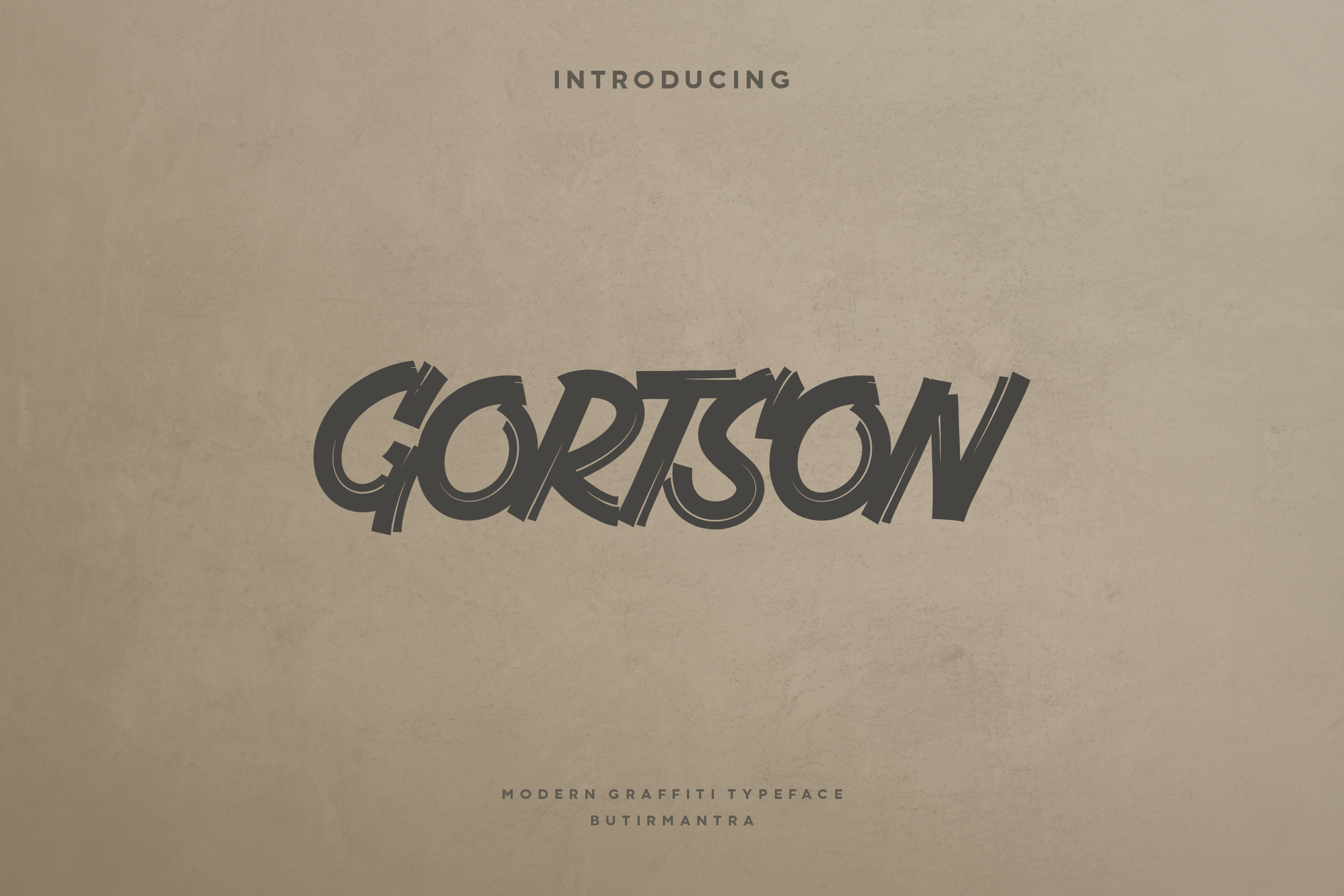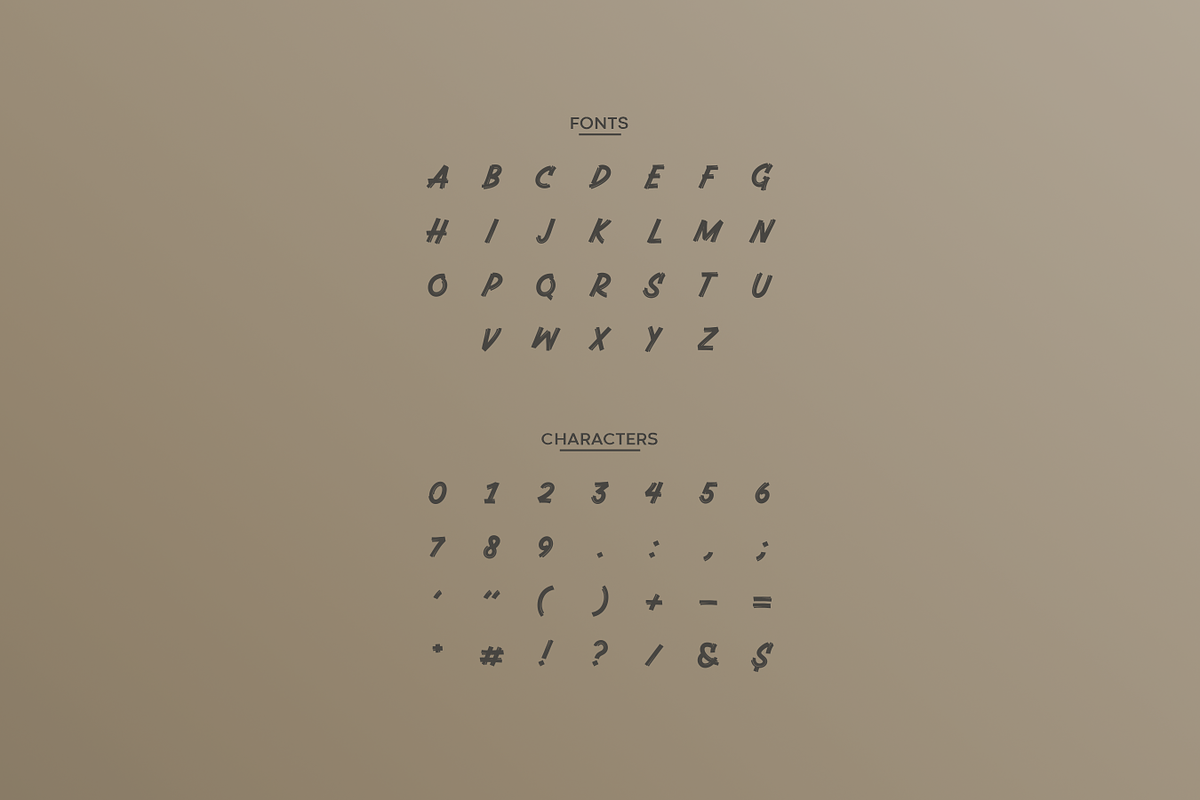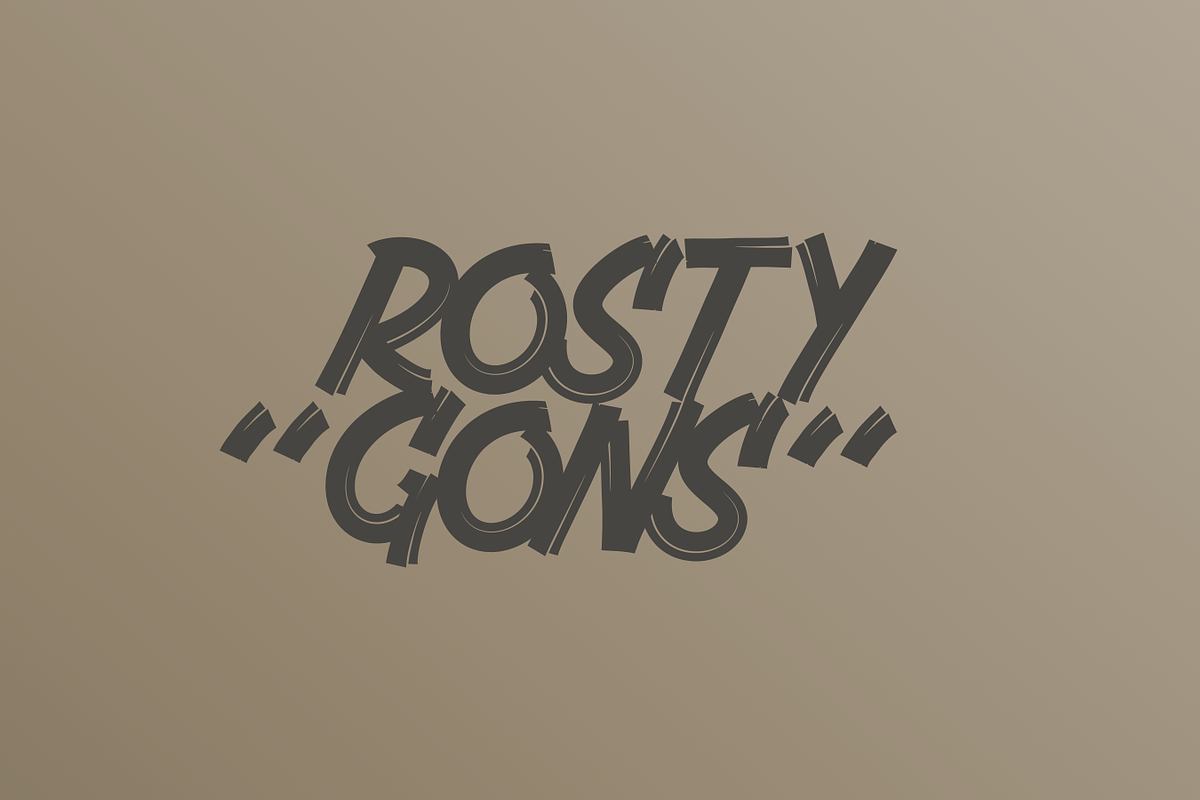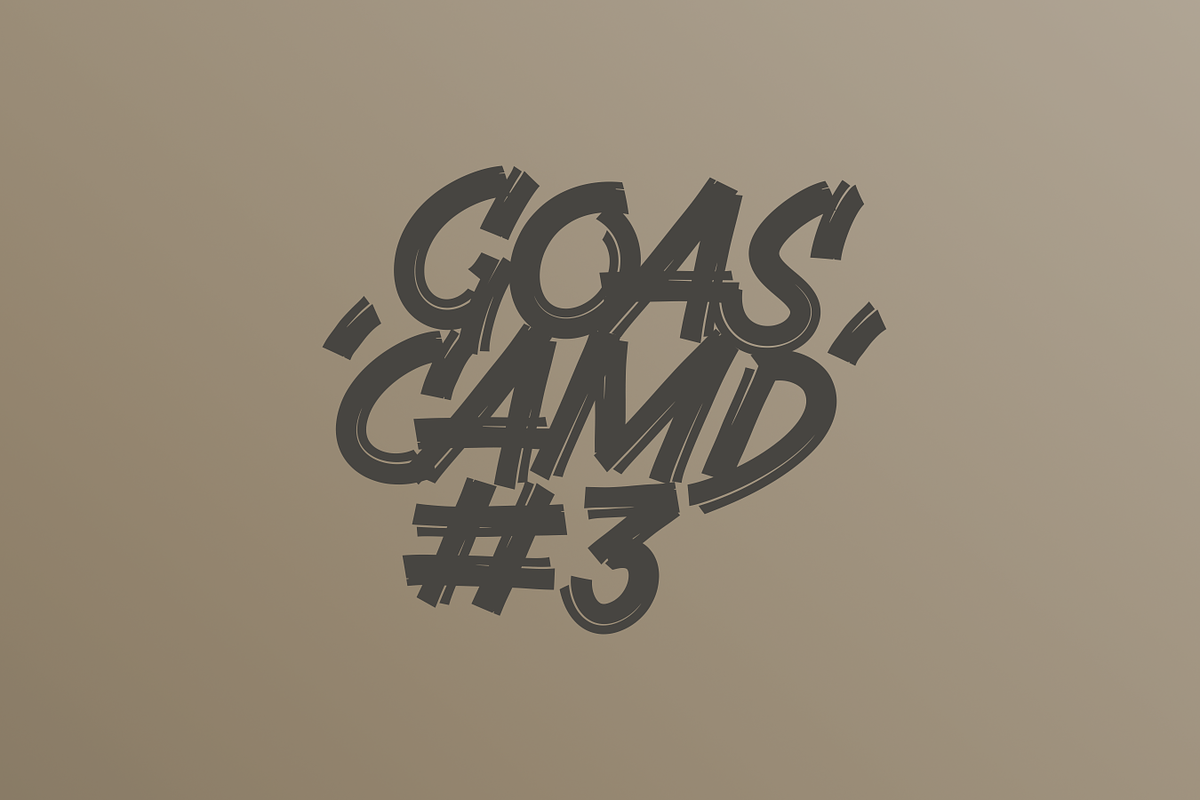
Gortson - Modern Handbrush Typeface
Gortson is a graffiti style handwritten font, inspired from graffiti tag, it gives a complete authentic feel on your text.
- Punctuation & Number